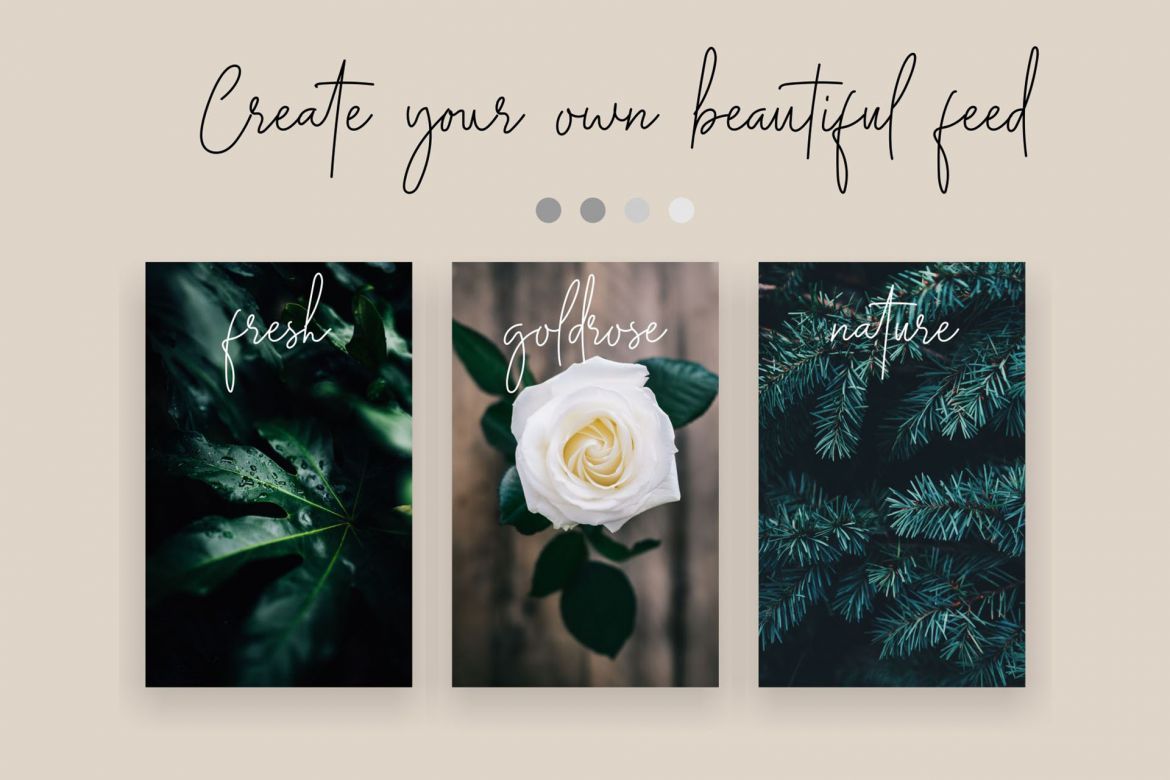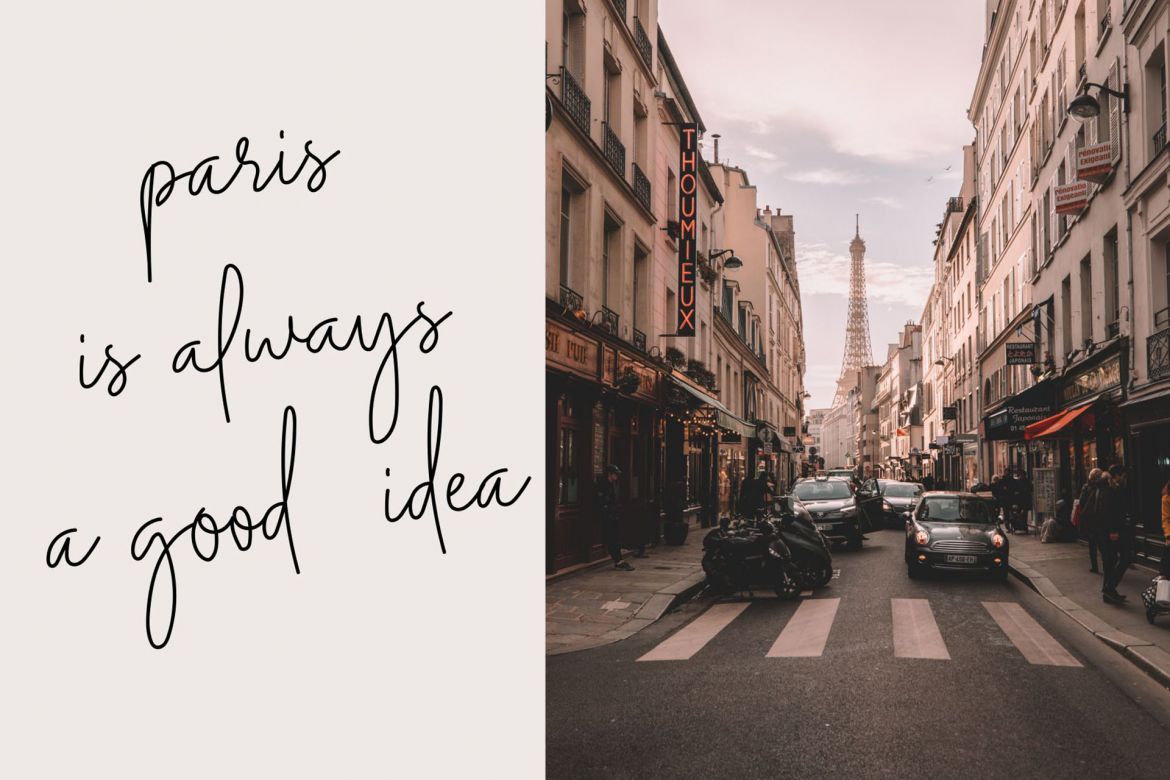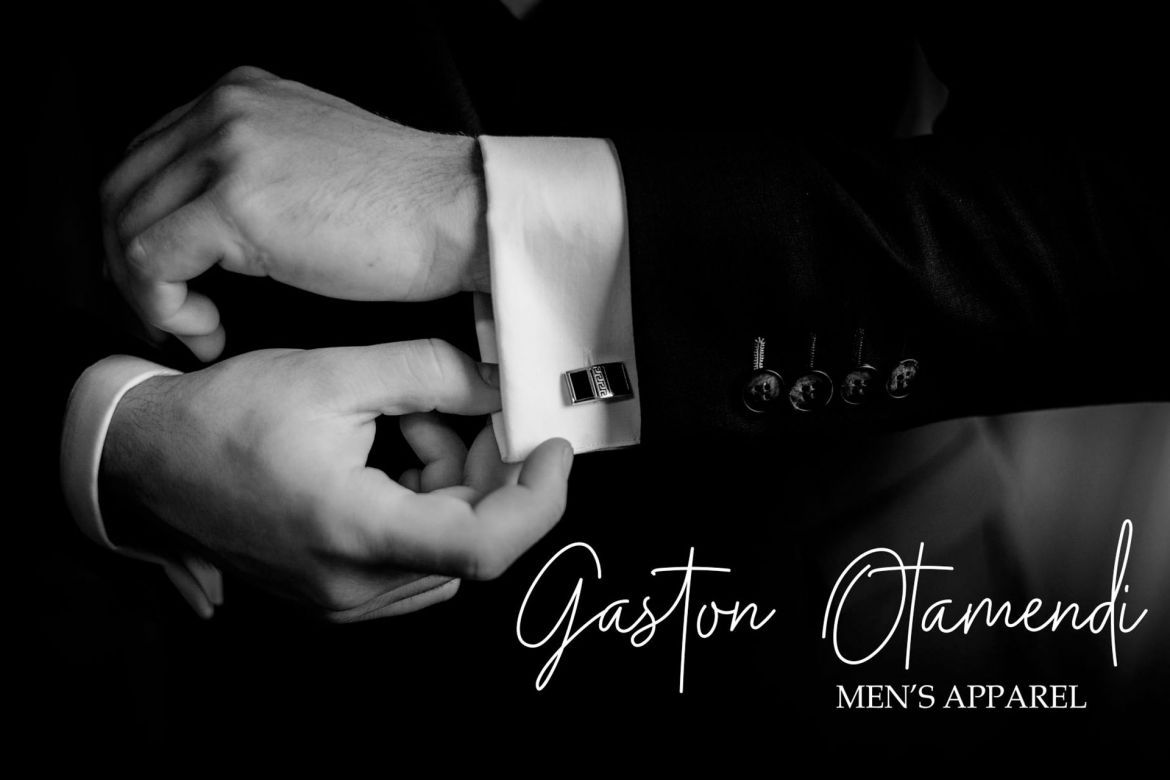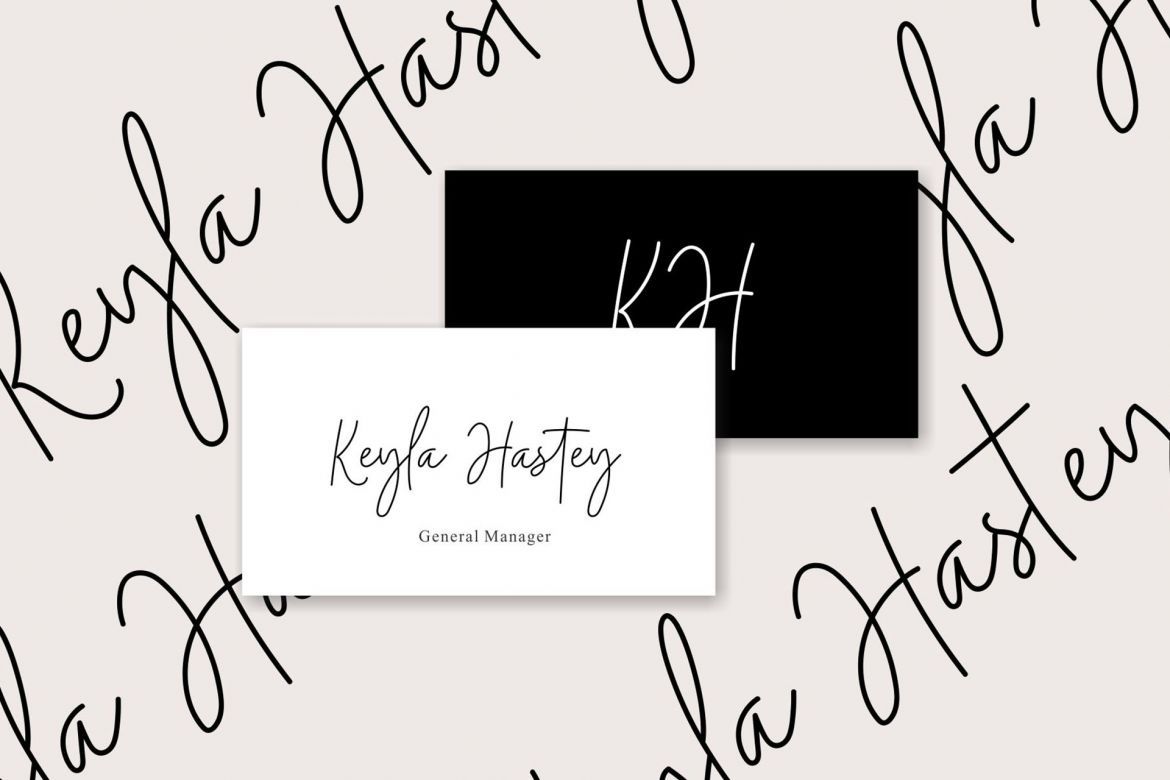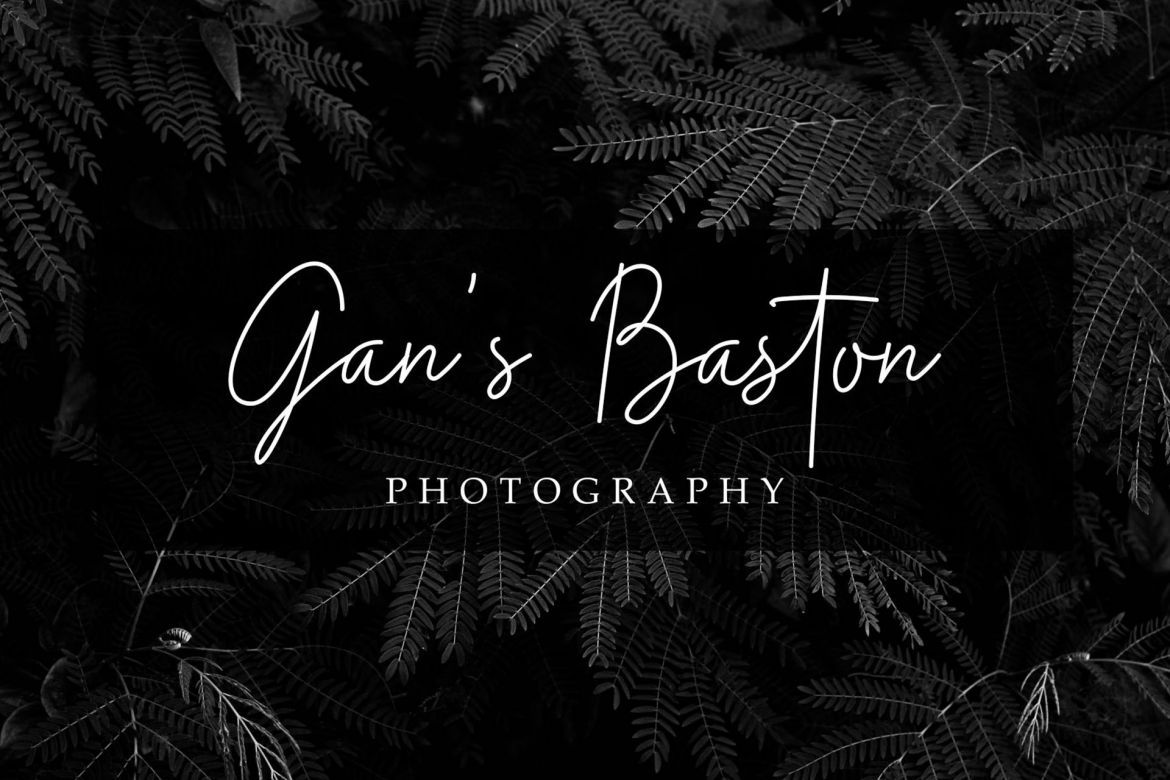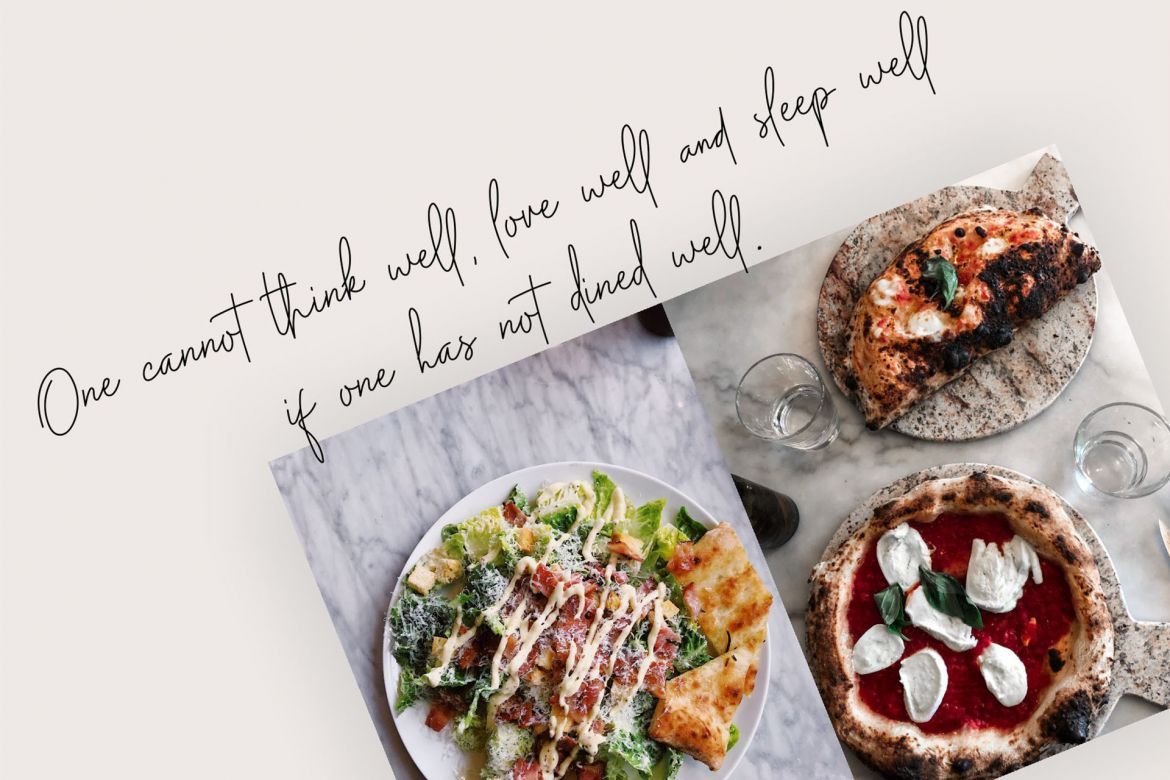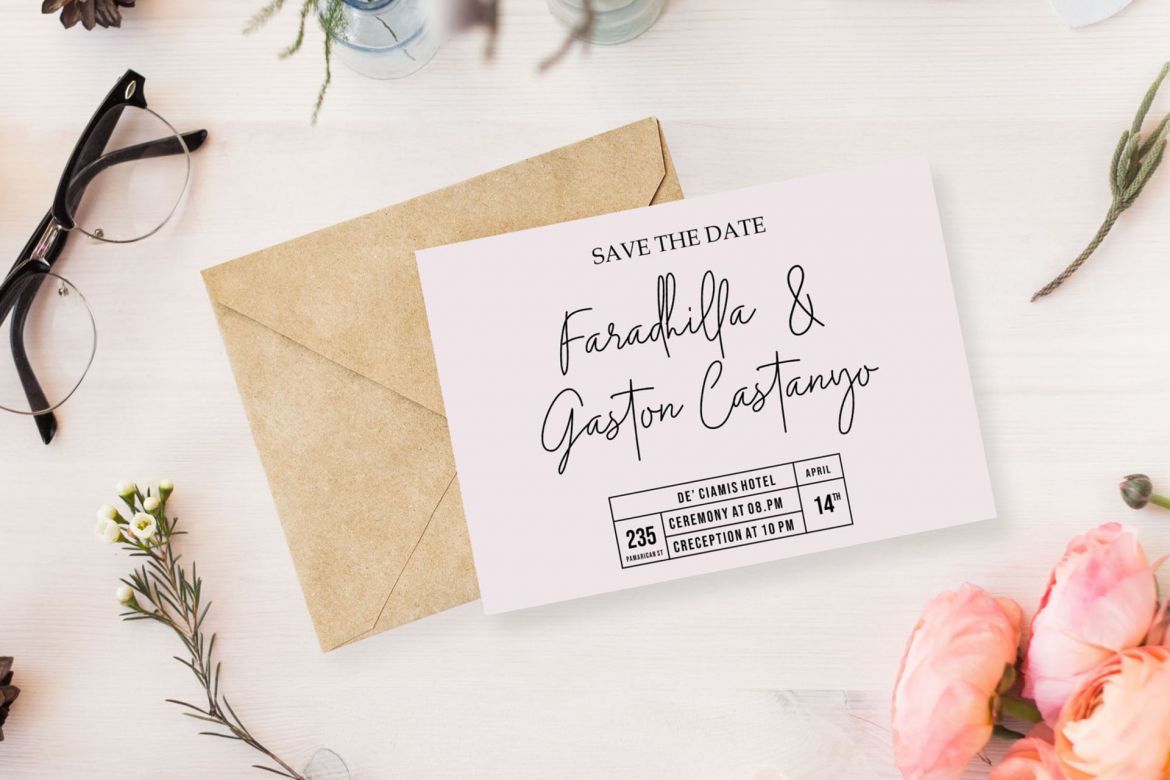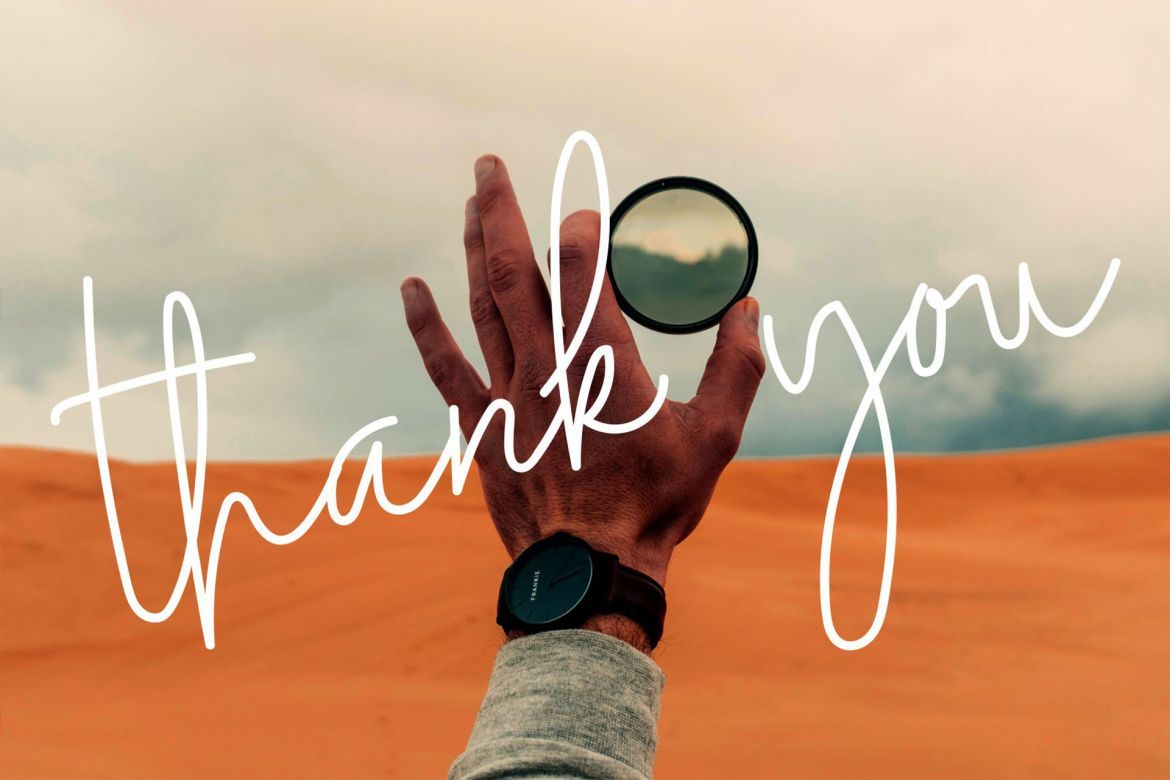
Midnight Signature Font
'Midnight Signature' is a handwritten signature script with a natural & stylish flow. This collection of scripts is perfect for personal branding. this works well for many applications. Everything from personal branding & wedding invitations to advertising could benefit from this collection of signature fonts.